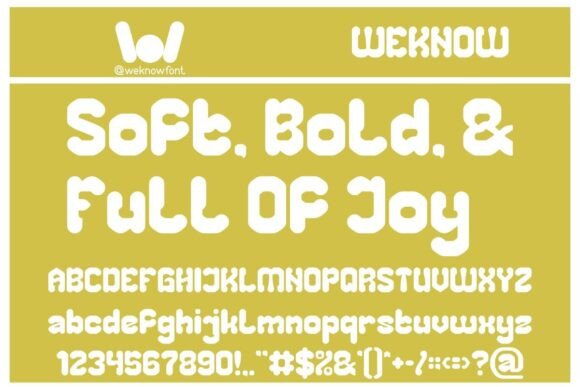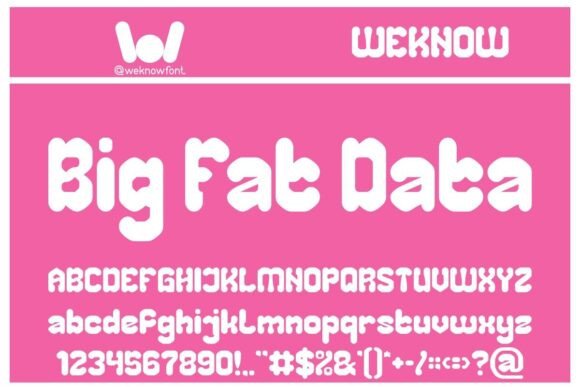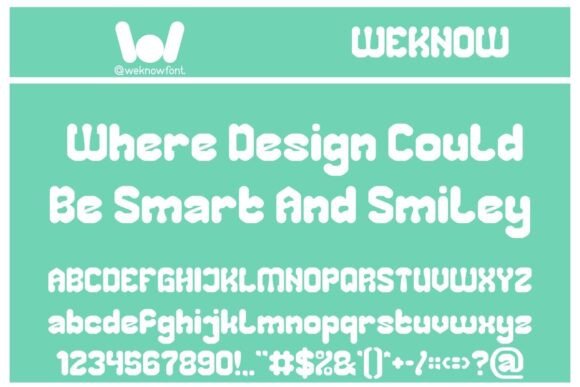
Introduction to Chubby Tech Font
Immerse yourself in the world of tomorrow with the Chubby Tech typeface.
This techno, sci-fi-inspired futuristic font flawlessly fuses modernity and retro-futurism With bold, rounded forms rendering a bracing digital vibe, Chubby Tech is strikingly aesthetic in its chunky curves and pristine lines.